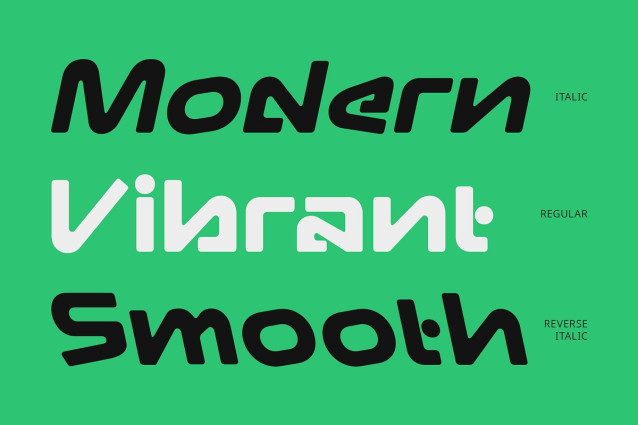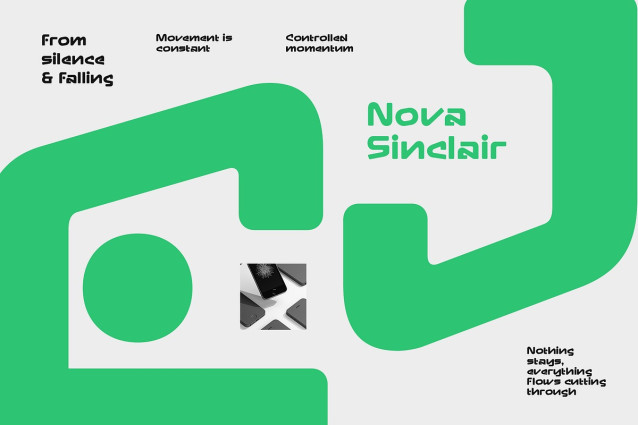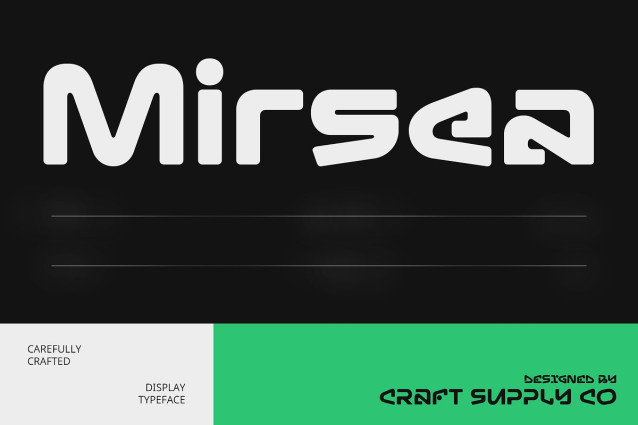
Mirsea Font
Mirsea Font is a bold futuristic display font defined by its sharp edges, clean structure, and geometric balance. Its strong and confident letterforms are designed to stand out while maintaining clarity and precision—ideal for designs that embrace innovation and a modern digital aesthetic.
Innovative Style for Forward-Thinking Visuals With its futuristic structure and bold weight, Mirsea instantly communicates progress, vision, and technology. It’s perfect for projects that aim to inspire and impress, from tech startups to sci-fi entertainment. Its sleek form embodies the spirit of what’s next.
Perfect for Tech, Sci-Fi, and Digital Design Whether used in a high-impact headline, a digital product interface, or branding for a futuristic concept, Mirsea brings a commanding and sophisticated tone. It’s especially suited for technology branding, sci-fi posters, esports titles, and innovation-driven campaigns.
Versatile for Bold Branding and Modern Interfaces Mirsea balances form and function, offering a contemporary look that works across digital and print platforms. Its modern character makes it adaptable to a wide range of projects where style, strength, and forward motion are key. From logo marks to web design, Mirsea helps your message stand out with bold clarity and futuristic flair.